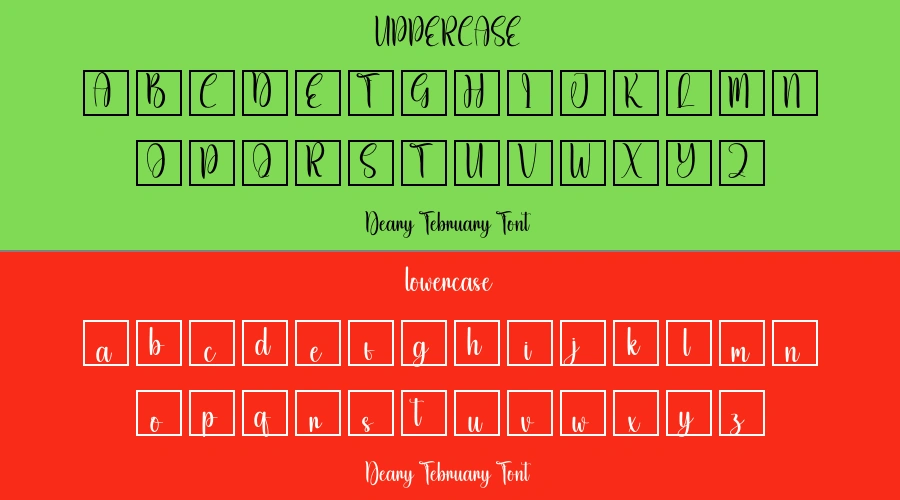
About Deary February Font
Deary February Font represents a sophisticated approach to type design, balancing flourished entries with consistency. Perfect for logo design, this font family showcases impressive adaptability and quality certification throughout its character set. Designers appreciate its versatility and reliability.
Designers will appreciate nuanced touches including flared stems and isolated forms, adding sophistication to any project. These features become apparent in retail environments, where texture integration matters most. The careful treatment of counter shape and brand personality ensures optimal performance.